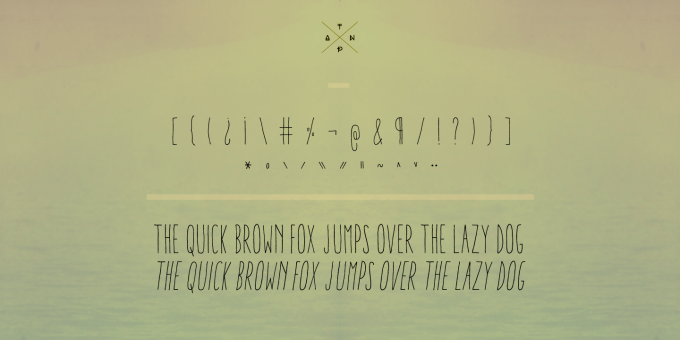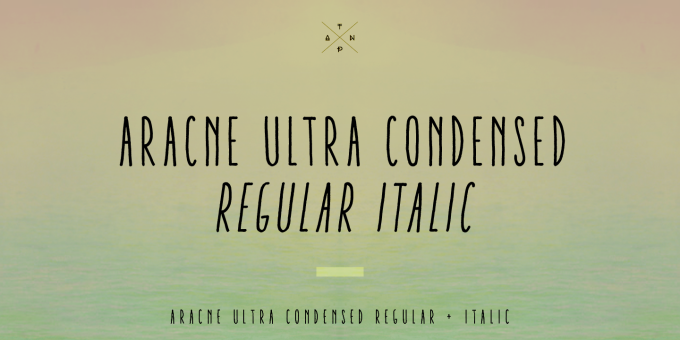
Aracne Ultra Condensed
A decorative handwritten font, with 2 styles. Ultra Condensed version of Aracne.
It’s recommended usage is for display titles, because of its good legibility and quality of glyphs.